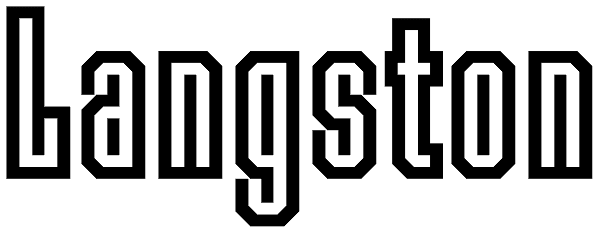
Langston
Langston is an original design by Alex Kaczun. It’s part of a series of lettering experiments, manipulating body proportions, characteristic elements and spacing to achieve some dramatic visual effects. It is hard to characterize if Langston is an...
Langston
Langston Small Caps